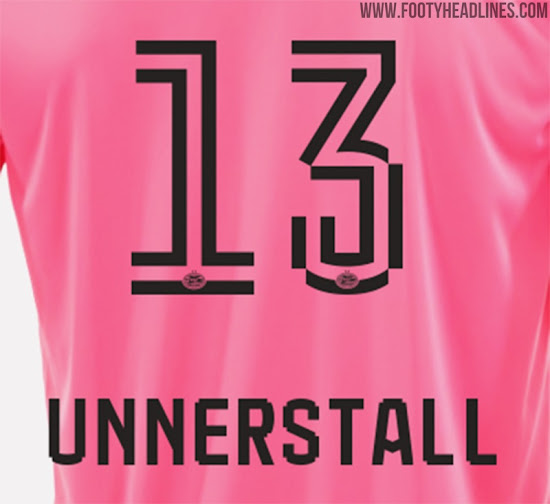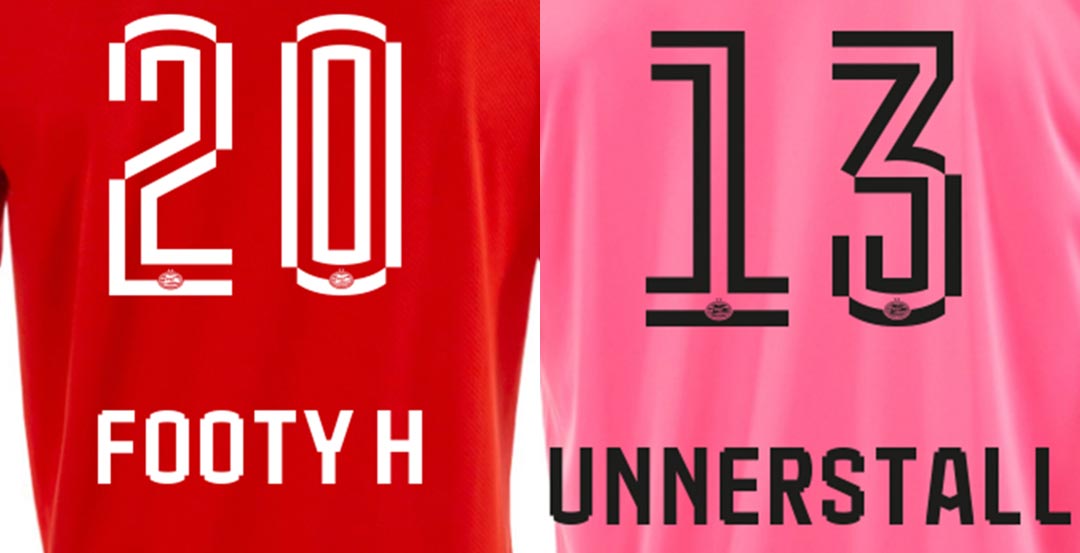
Unique PSV Eindhoven 20-21 Kit Font Released
- New Kit and Font: PSV Eindhoven released a new Puma home kit on July 1, 2020, which included an all-new typeface.
- Unique Font Design: The PSV 2020-21 kit font features numbers made up of different, and sometimes deformed, lines, and the letters have a distinct 8-bit look.
Dutch club PSV released their first-ever modern Puma home kit on July 1 2020. Together with the new kit, PSV gets an all-new typeface.
Puma PSV Eindhoven 20-21 Kit Font
A unique look, each number of the Puma PSV Eindhoven 20-21 jersey is made up of different lines, of which some are deformed. The result are numbers that look different to those of any other club.
The letters of the PSV 2020-21 kits also have an one-of-a-kind 8-bit-font look.
It is not known whether the typeface was designed by the club themselves or by Puma - the font is not based on the streamlined Puma jersey typeface for the 2020-2021 season.
keeper kit with Unnerstall on back